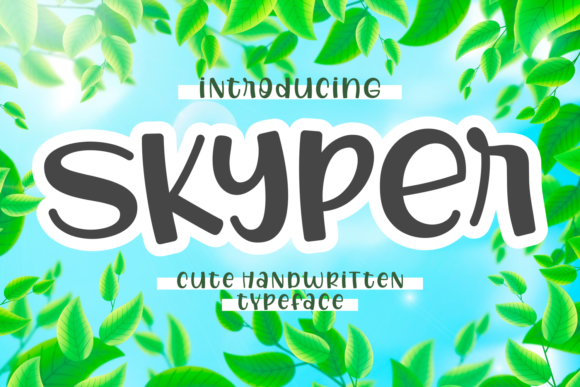
Behold, a realm where creativity reigns supreme and imagination knows no bounds—the world of Skyper Font, where elegance and fun collide! Say goodbye to mundane typography and unlock a universe of captivating designs that will elevate your creations to extraordinary heights.
Dive into an enchanting journey with Skyper Font, a display font crafted to ignite imaginations and captivate hearts. Its whimsical strokes and charming curves dance across the page, evoking a sense of wonder and delight. Unleash your creativity and weave tales of magic, whimsy, and endless possibilities with every stroke of the keys.
Visualize your words transformed into enchanting works of art, captivating the attention of all who behold them. Whether you're a seasoned designer, an aspiring artist, or simply someone seeking to add a touch of whimsy to your digital creations, Skyper Font is the perfect companion for your creative endeavors.
With Skyper Font at your fingertips, ordinary designs transform into captivating masterpieces. From playful posters that ignite smiles to enchanting logos that leave a lasting impression, this font is your ultimate tool for creating visual magic. Let your designs blossom with a personality that shines through every curve and flourish, leaving an indelible mark on the hearts of your audience.
Step into the realm of Skyper Font and unlock a world of endless creative possibilities. Embrace the beauty of delightful designs and embark on a journey where imagination knows no limits. It's time to let your creativity take flight and create visual wonders that inspire, captivate, and leave an enduring legacy of artistic brilliance.